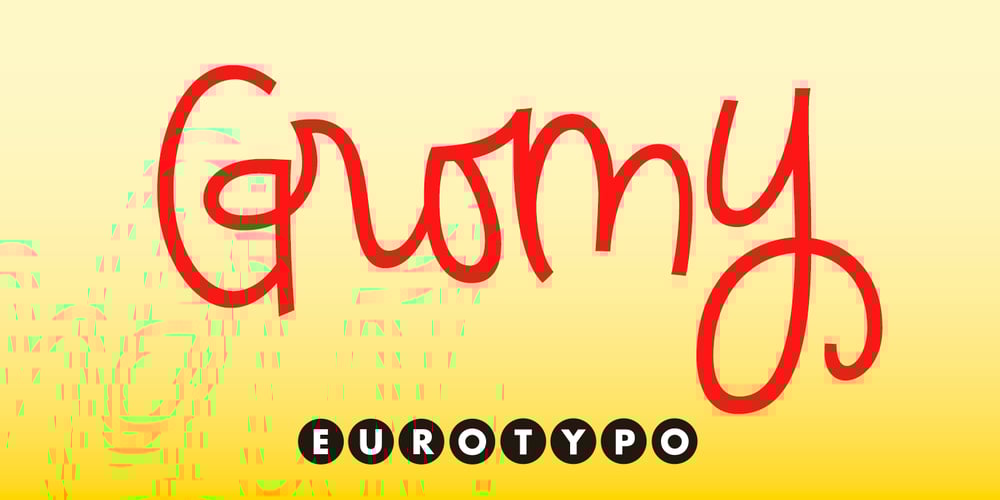
Gromy Font Family was designed by Carine de Wandeleer and published by Eurotypo. Gromy contains 1 styles and family package options. Gromy is a casual, informal and friendly calligraphic font. It come with 561 glyphs, with OpenType features, swashes for all glyphs, stylistics sets, stylistics alternates and a lot of ligatures to play with your texts. Gromy can be used in works that require an informal and original feel, children’s books, wedding invitations, greeting cards, posters, labels, t-shirt design, in ink or watercolour based designs, fashion, magazines, food packaging and menus, book covers and whatever your imagination holds!